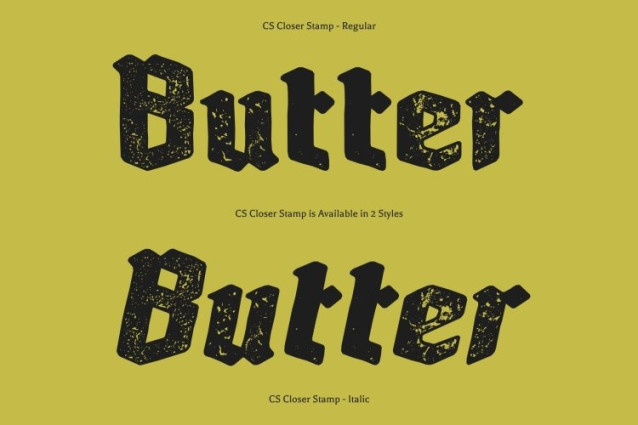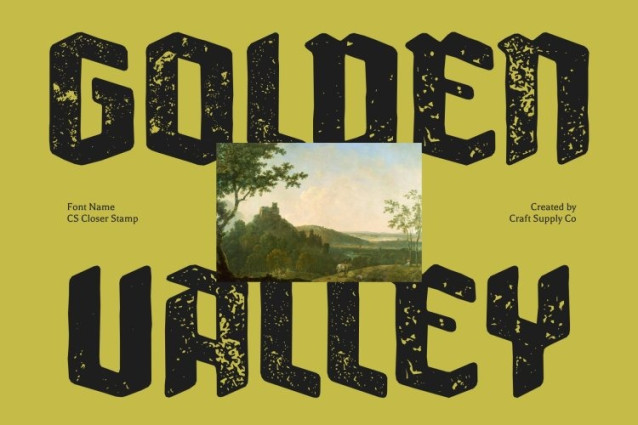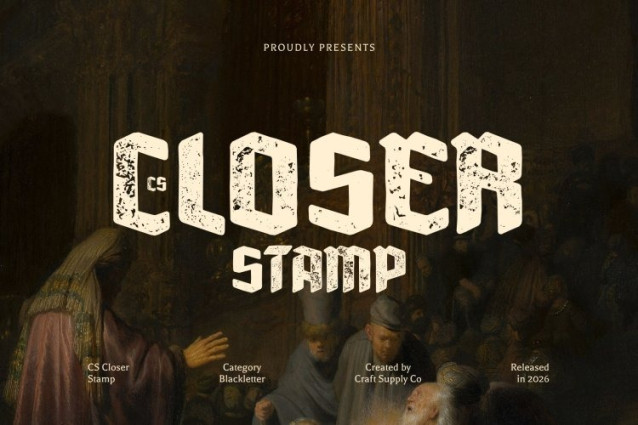
CS Closer Stamp Font
CS Closer Stamp Font – This is a modern Gothic display sans-serif font that fuses sharp, clean geometry with the dramatic elegance of Gothic design. Its structured forms and distinctive details create a powerful visual identity that feels both bold and sophisticated. Enhanced with a stamp effect, the font gains a textured, slightly distressed finish that adds depth and a handcrafted, vintage-inspired character.
Sharp Structure with Textured Character
The font’s clean lines and angular elements deliver clarity and strength, while subtle Gothic influences introduce a sense of heritage and artistic flair. The stamp effect adds ink-like variations and worn edges, balancing modern precision with an organic, tactile quality reminiscent of traditional print.
Striking Presence for Impactful Design
This is designed to command attention. Its bold form and unique style make it highly effective for headlines, logos, and visual compositions that require a strong and memorable impression. The added texture enhances its visual richness without compromising readability.
Perfect for Branding, Posters, and Digital Media
Ideal for branding, posters, marketing materials, and digital design, this font brings a distinctive blend of Gothic sophistication and modern clarity. Its fusion of bold structure and vintage stamp texture creates a typographic voice that is powerful, stylish, and visually compelling.